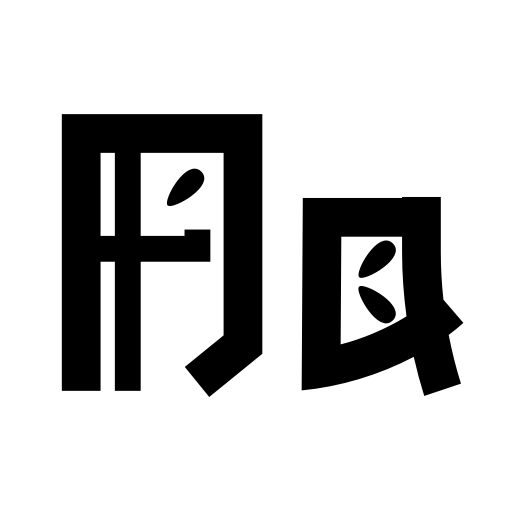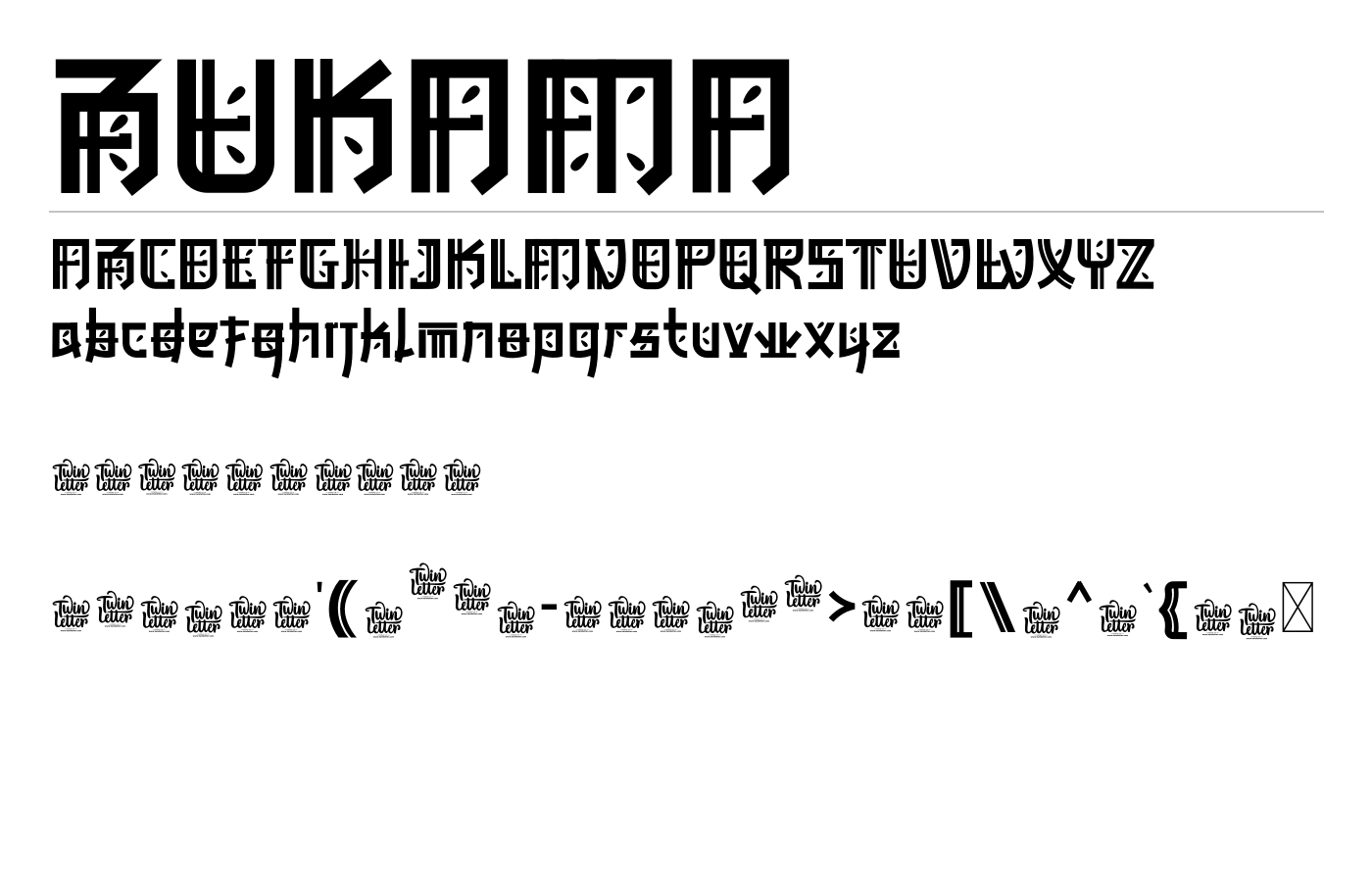
BUKAMA is a bold, decorative sans serif font with a strong geometric structure and high contrast between thick and thin strokes. Its unique, almost tribal-inspired shapes give it a striking, modern yet cultural vibe, making it ideal for eye-catching logos, posters, and branding that seeks to stand out with a powerful and artistic personality. This font works best in headlines or display use where its distinctive style can make a memorable impact.
BUKAMA Font
About BUKAMA Font